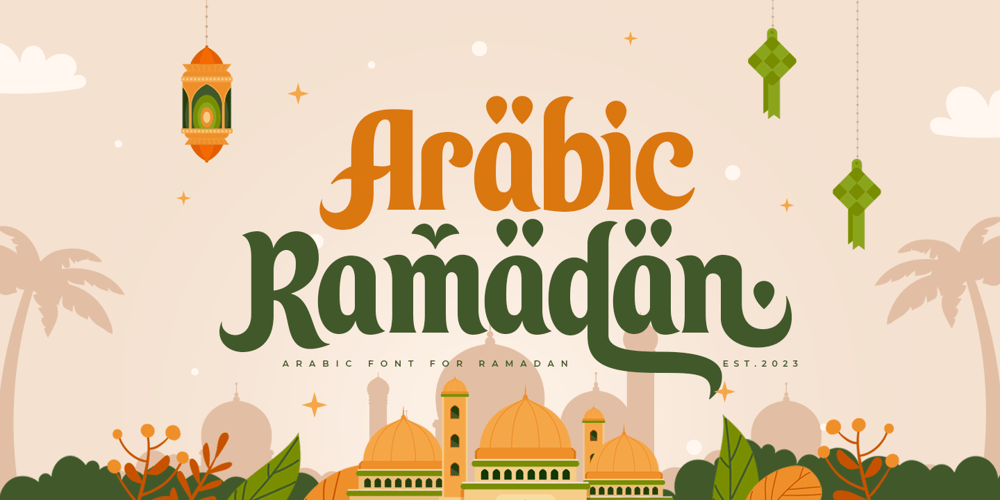
Arabic Ramadan Style
Arabic Ramadan Style font
Arabic Ramadan Style Font Family was designed by Zamroni Hamzah and published by Sensatype Studio. Arabic Ramadan Style contains 1 styles and family package options. Arabic Ramadan Font is a fancy, unique, and versatile arabic font, that you can combine to get any variations and unique shapes easily just in seconds with choose alternates of them. It is a serif display font with moderate contrast that perfect for moslem branding projects, logo, wedding designs, social media posts, advertisements, product packaging, product designs, label, photography, watermark, invitation, stationery, and any projects, it makes with a high level of legibility.What’s Included: Character set A-Z Uppercase & Lowercase Numerals & Punctuation Accented Characters (West Europe) Stylistic alternates Works on PC & Mac Recommended using Adobe Illustrator or Adobe Photoshop. Wish you enjoy our font. 🙂